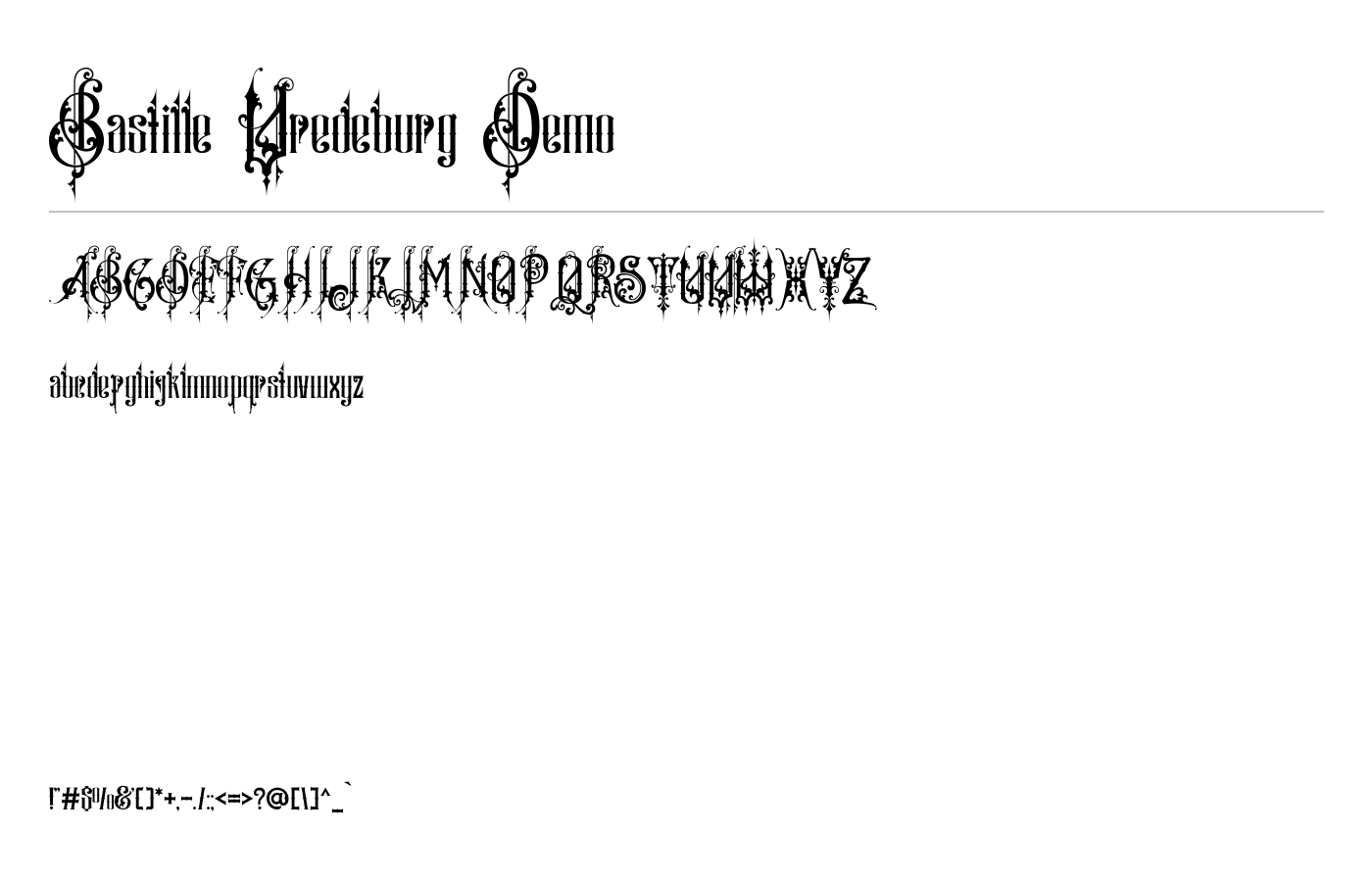
Bastille Vredeburg Demo is a highly decorative blackletter serif font that features intricate, sharp embellishments and a tall, narrow structure giving it a historic, Gothic flair. Its elaborate uppercase letters with pointed flourishes and condensed lowercase forms evoke a dramatic and vintage atmosphere, making it ideal for use in logos, posters, or themed designs that call for an elegant yet bold medieval or Victorian impression. This font is best suited for headline or display use where its ornate style can stand out without sacrificing legibility.
Bastille Vredeburg Demo Font
About Bastille Vredeburg Demo Font